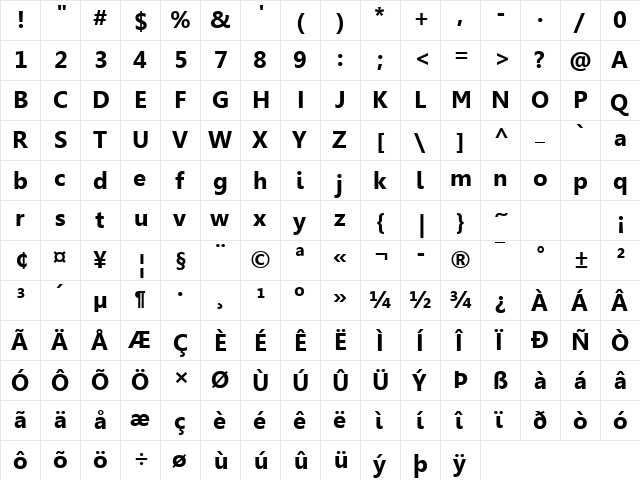
Gisha Bold Font Preview
Gisha Bold
Gisha Bold Font Details
| Foundry | Microsoft Corporation |
Design Context for Gisha Typeface
Gisha is a composed and adaptable typeface that performs quietly and consistently across a wide range of design contexts. The heavy weight commands attention and anchors typographic hierarchies.